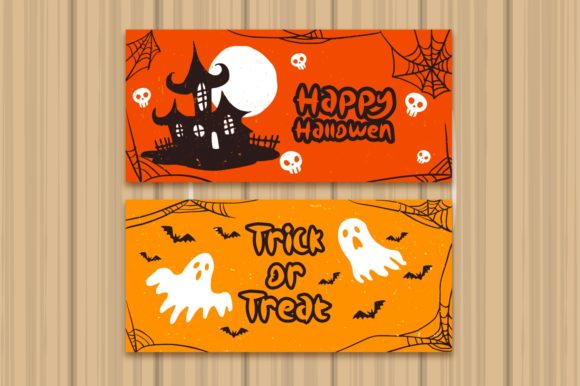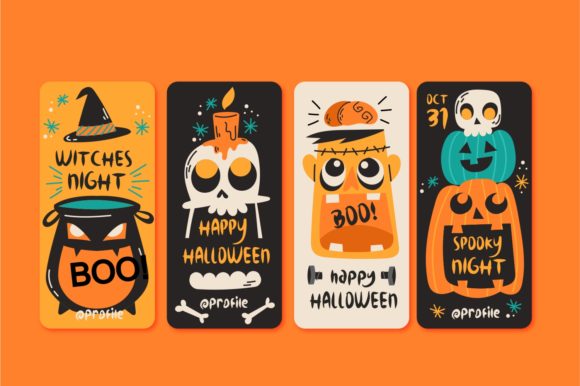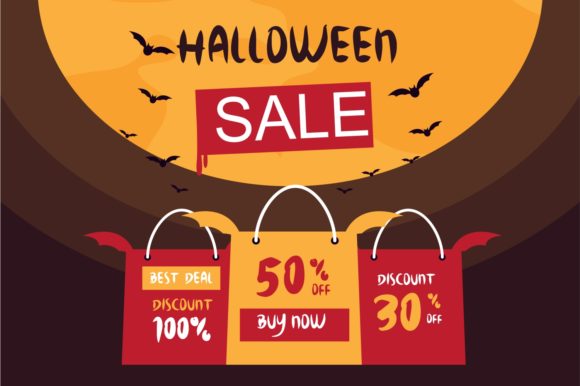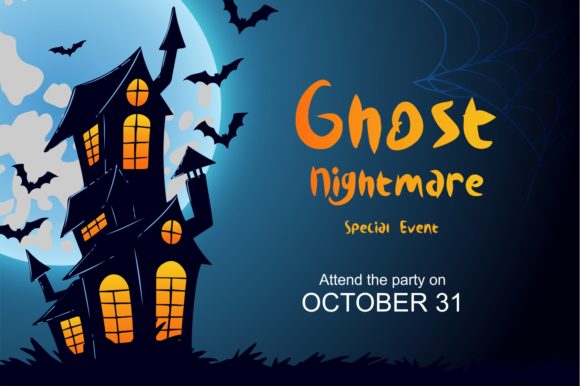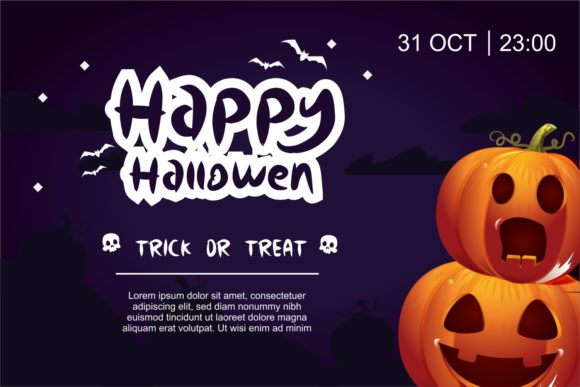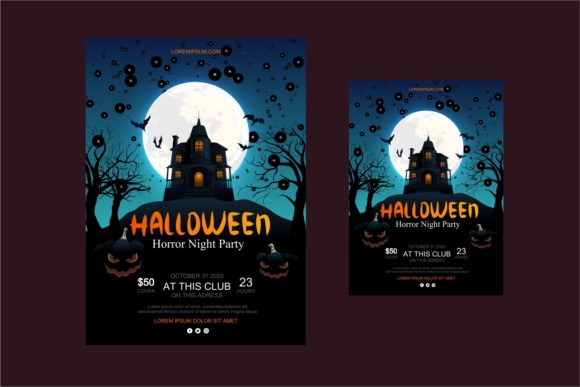
The Spooky Charm of Ghost Night Font: A Designer’s Delight
I’ll never forget the time I was working on a Halloween-themed project for a client, and I just couldn’t find the right font to capture the spooky essence of the season. The client wanted something that would make their flyers and social media posts stand out, but everything I found seemed either too generic or too over-the-top. That’s when I stumbled upon Ghost Night Font, a unique and spooky display font that instantly caught my attention. ✨
An Honest Review of Ghost Night Font
- 👻 **Unique and Spooky Design**: Ghost Night Font has a distinct, eerie feel that perfectly captures the spirit of Halloween and October-themed designs.
- ✅ **Highly Readable**: Despite its ornate design, the font remains surprisingly readable, even at smaller sizes.
- 💡 **Versatile**: It works well for both digital and print projects, from social media graphics to flyers and posters.
- 🎃 **Themed Perfection**: It’s specifically designed with Halloween and October themes in mind, making it a go-to choice for seasonal projects.
While Ghost Night Font is fantastic for many uses, there are a few things to keep in mind: 🤔
- ⚠️ **Limited Use Beyond Halloween**: Its highly specialized design means it might not be the best choice for projects outside of Halloween or October themes.
- ⚠️ **Some Letters May Be Less Legible at Very Small Sizes**: While generally readable, a few letters might become tricky to read when the font size gets very small.
Ghost Night Font was inspired by the classic spooky tales of old, with a modern twist to make it stand out in today’s designs. The designer aimed to create a font that captures the essence of Halloween nights — mysterious, eerie, and full of wonder. By combining traditional spooky elements with contemporary design principles, Ghost Night Font was born.